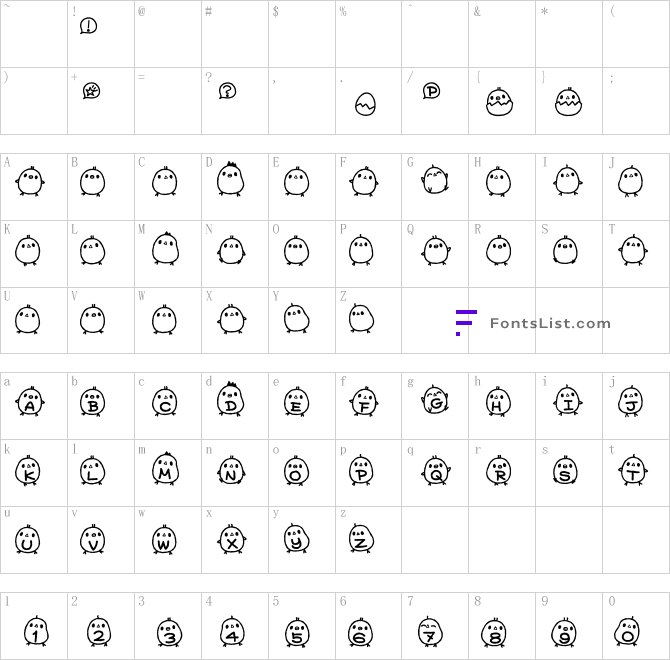
- Font Name:AKPiyoko
AKPiyoko.ttf is a very beautiful artistic font, AKPiyoko.ttf is widely used in the design and printing of various books and pictures,AKPiyoko.ttf has a strong visual impact,AKPiyoko.ttf is a commonly used font in newspapers, magazines and books, and is used in posters, e-commerce Poster design, store design, logo design, font design and other fields.AKPiyoko.